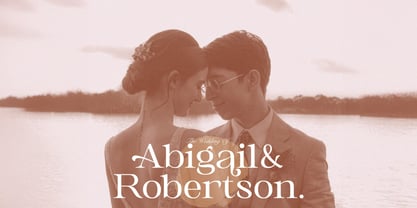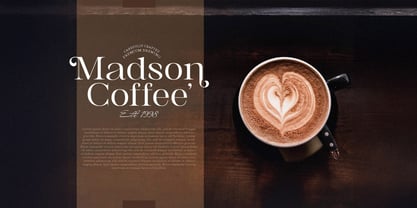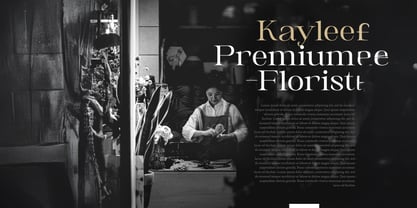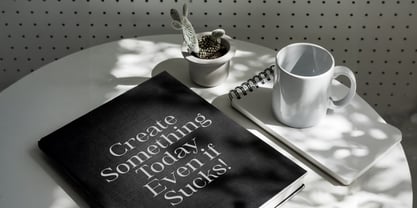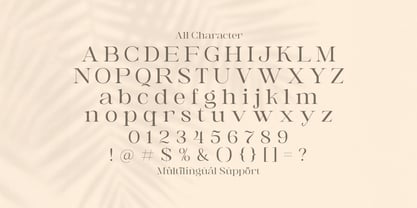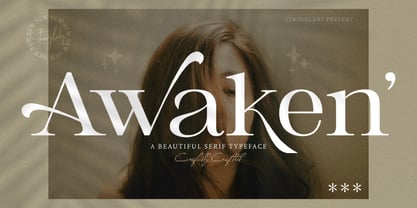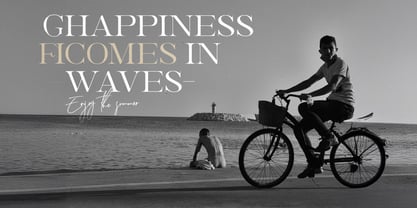
The Awaken Font Family was designed by Virgiawan Listanto and published by Stringlabs Creative Studio. Awaken contains 1 styles.
Awaken is a relaxed yet refined serif font that blends classic elegance with a modern, approachable touch. With soft curves, subtle serifs, and a friendly tone, Awaken is perfect for designs that need to feel both stylish and down-to-earth. Ideal for branding, editorial layouts, social media, and creative projects, Awaken offers versatility and charm with every letter.
Awaken